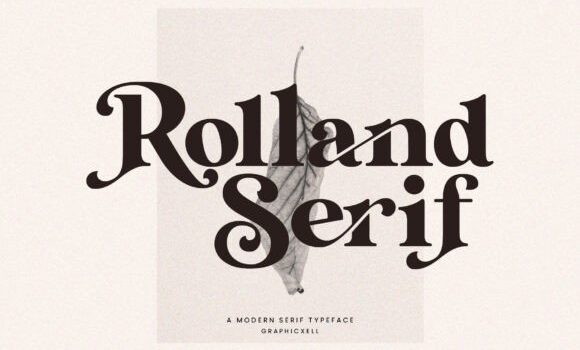
rolland
Rolland Font – Free Download Introduction to Rolland Font Rolland font exudes modern elegance with its sleek and sophisticated serif design. 📸 Preview Gallery 6 images 📌 Product Name Rolland Font 👤 Author Graphicxell 📂 Category Explore ⬇️ Download Rolland